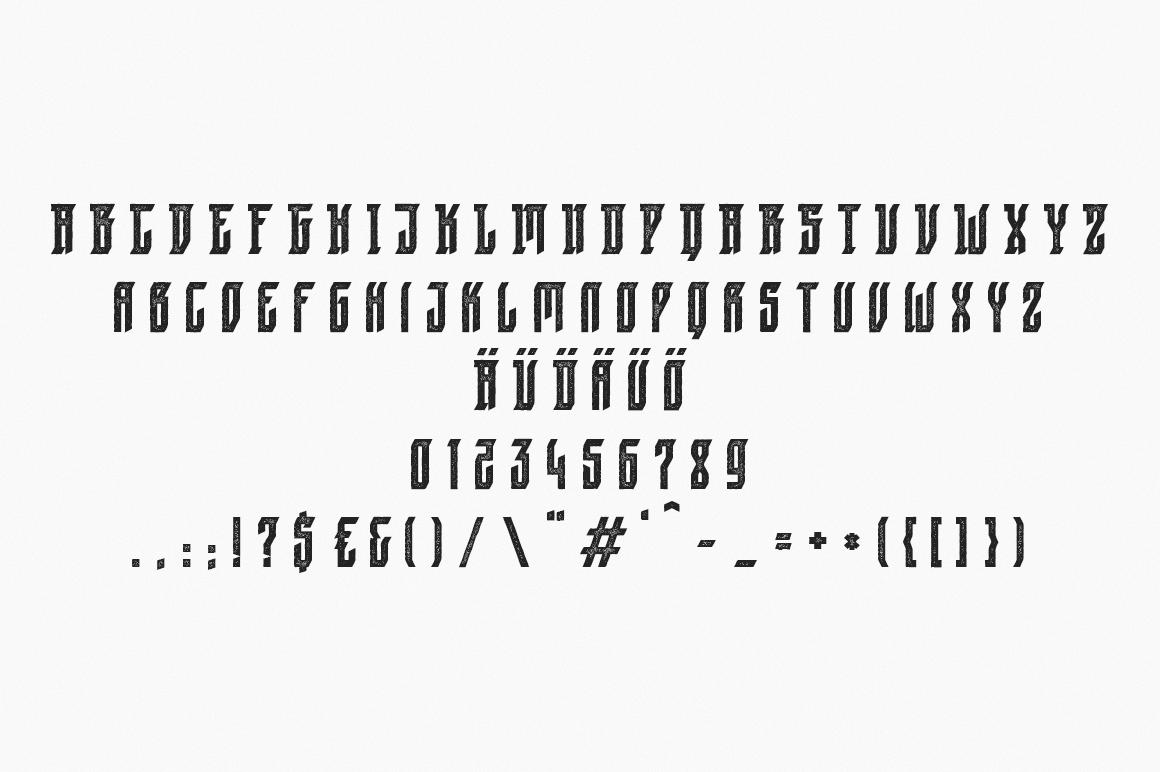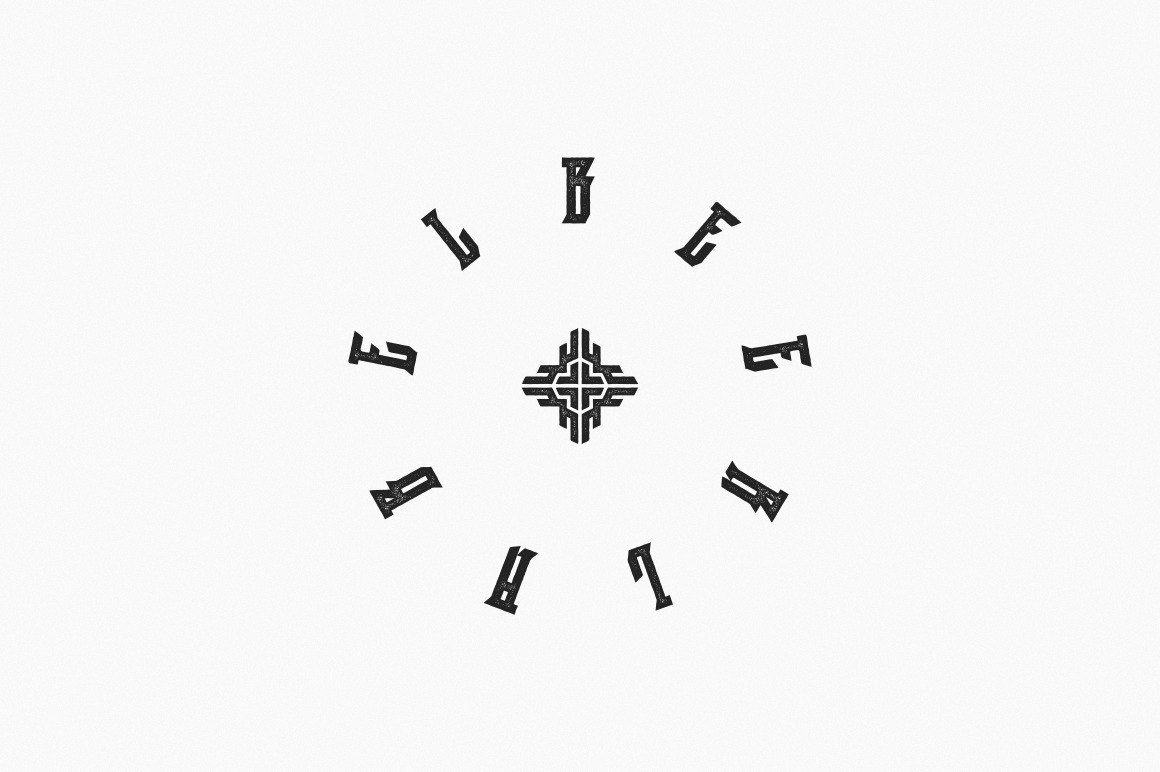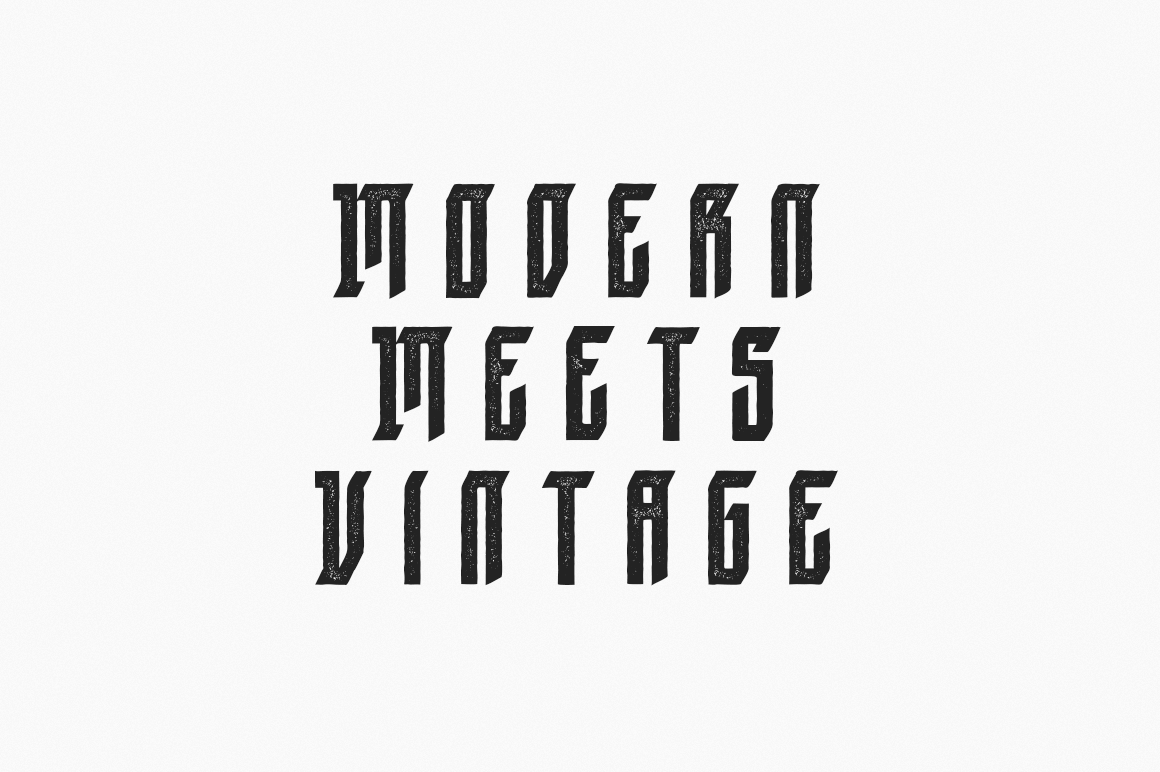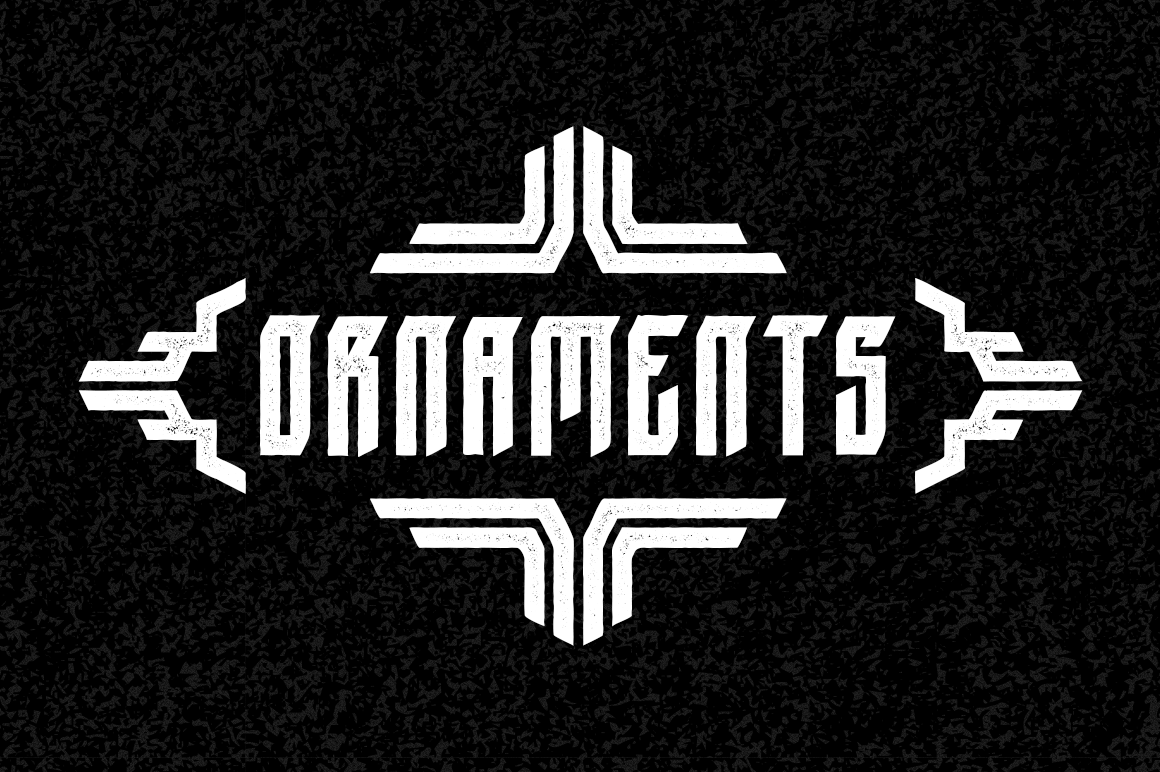
About Black Edge Vintage Font
Black Edge Vintage is the letterpress/stamp version of the Black Edge font.
Black Edge is a strongly stylized blackletter font, inspired by modern and minimal typography and now also with a vintage letterpress aesthetic.
It is particularly suitable for headlines, logos, labels, packaging and t-shirts. This font-family also contains several ornamental elements.
This vintage version includes a second set of the main letters with different stamp textures. This extra gives you the possibility to change single letters to achieve the authentic press/stamp look.